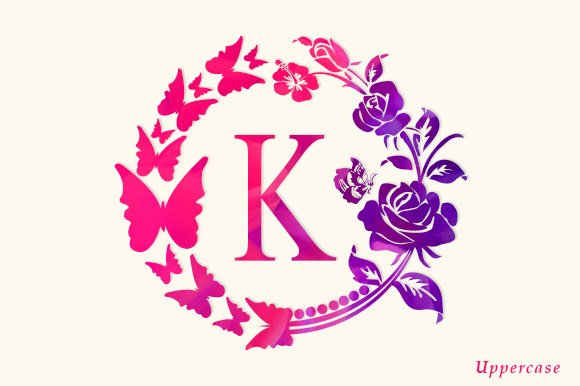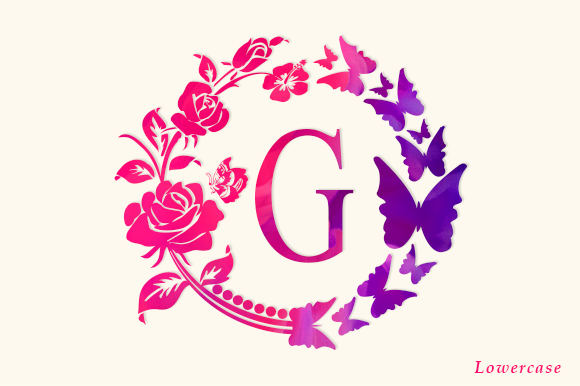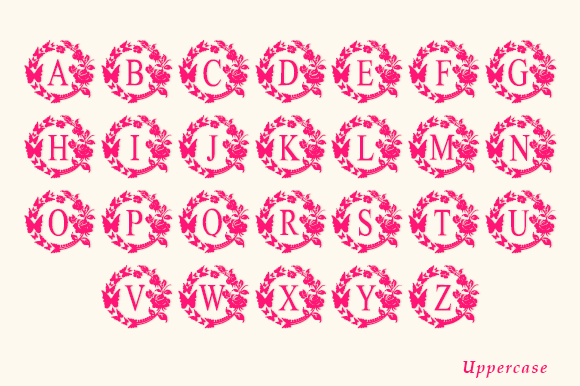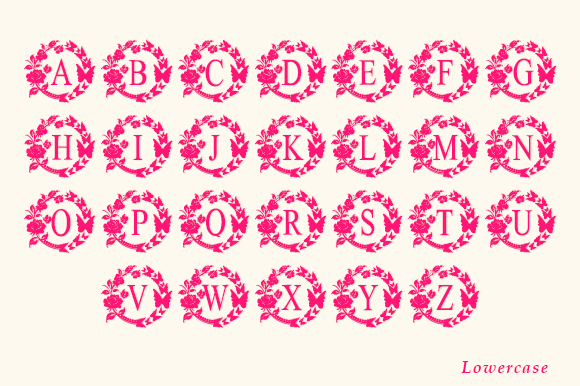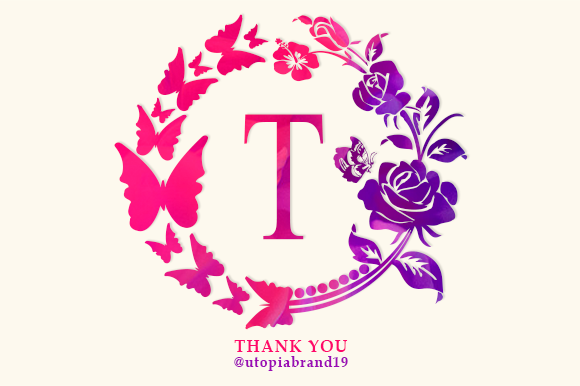
Introduction to Rose and Butterfly Monogram Font
Rose and Butterfly Monogram is a charming decorative font.
Fall in love with its authentic feel and use it to create gorgeous invitations, beautiful stationary art, eye-catching social media posts, and cute greeting cards .
Key Features of Rose and Butterfly Monogram Font
Why Choose Rose and Butterfly Monogram Font?